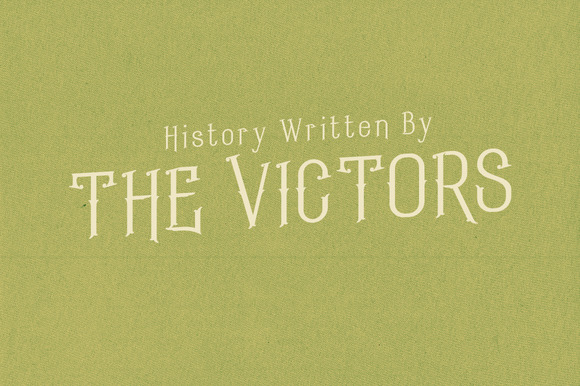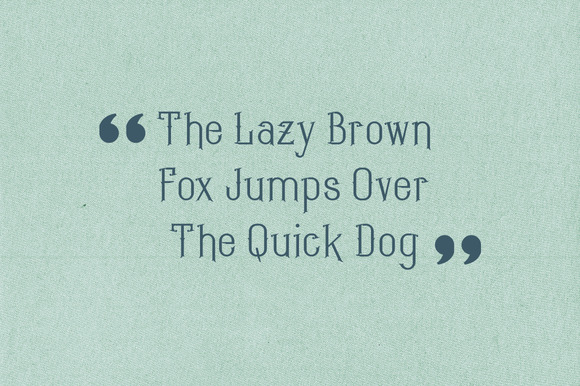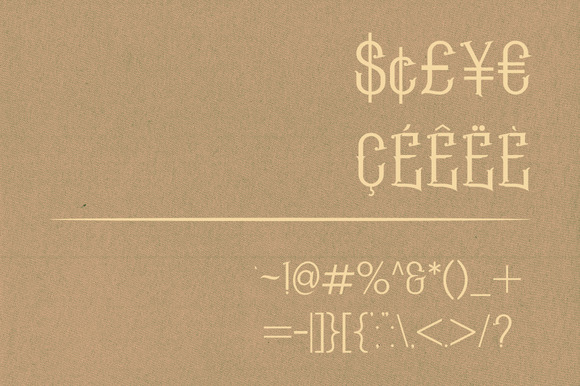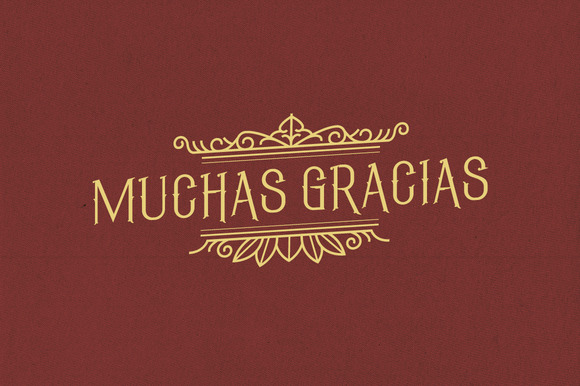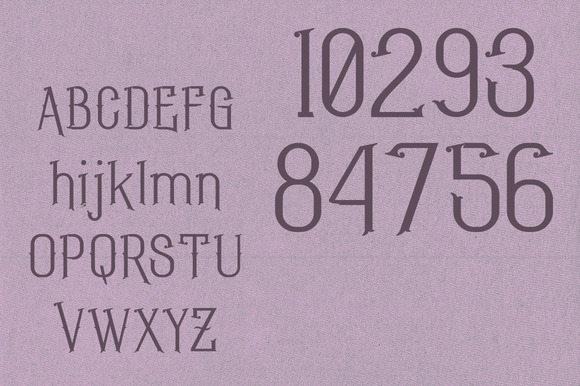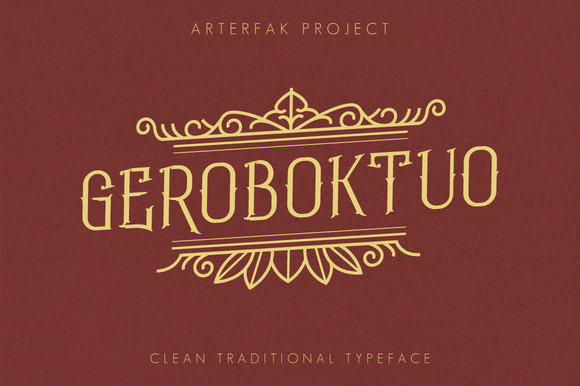
Discover the Elegance of Geroboktuo Font: A Perfect Blend of Vintage and Modern Style
In the world of typography, fonts play a crucial role in conveying the tone and aesthetic of a project. For designers and crafters looking for a typeface that exudes elegance and sophistication, Geroboktuo Font is an excellent choice. This serif typeface is a unique combination of vintage and modern styles, making it perfect for a wide range of projects.
The Unique Characteristics of Geroboktuo Font
Geroboktuo Font boasts an ornamental taste, characterized by its intricate details and classic serif features. Despite its ornate nature, the font looks clean and simple, making it highly versatile for various design applications. Whether you’re working on a branding project, a website, or a craft project, Geroboktuo Font is sure to make a statement.
Why Choose Geroboktuo Font?
- Timeless Elegance: The font’s vintage undertones give it a timeless quality that never goes out of style. At the same time, its modern twist ensures it feels fresh and contemporary.
- Versatility: Geroboktuo Font can be used for a variety of projects, from digital media to print materials. Its clean and simple appearance makes it easy to read, while its ornamental details add a touch of sophistication.
- Easy to Read: Despite its ornate features, Geroboktuo Font remains highly legible, making it perfect for body text as well as headings and titles.
- Unique Aesthetic: The combination of vintage and modern styles gives Geroboktuo Font a unique aesthetic that sets it apart from more traditional typefaces.
Using Geroboktuo Font in Your Projects
Geroboktuo Font’s versatility makes it suitable for a wide range of projects. Here are a few ideas on how you can use this beautiful typeface:
- Branding and Logo Design: The font’s elegant and sophisticated look makes it perfect for branding and logo design. Use it to create a lasting impression on your customers.
- Web Design: Geroboktuo Font is highly legible on digital screens, making it an excellent choice for website design. Its clean and simple appearance ensures a great user experience.
- Print Materials: From brochures and flyers to posters and business cards, Geroboktuo Font can elevate your print materials with its classic yet modern aesthetic.
- Craft Projects: If you’re a crafter looking for a font to use in your projects, Geroboktuo Font is a great choice. Its unique style can add a personal touch to your crafts, making them stand out.
Tips for Maximizing the Impact of Geroboktuo Font
To get the most out of Geroboktuo Font, consider the following tips:
- Pair it with Other Fonts: Experiment with pairing Geroboktuo Font with other fonts to create a unique and visually appealing combination.
- Adjust the Size and Weight: Play around with different sizes and weights of Geroboktuo Font to add hierarchy and emphasis to your text.
- Use it Consistently: For branding and website projects, use Geroboktuo Font consistently across all materials to create a cohesive look.
Geroboktuo Font is a beautiful and versatile typeface that combines the best of vintage and modern styles. Its ornamental taste, clean and simple appearance, and high legibility make it perfect for a wide range of projects. Whether you’re a designer or a crafter, Geroboktuo Font is sure to elevate your work and make it stand out. So why wait? Discover the elegance of Geroboktuo Font and take your projects to the next level.